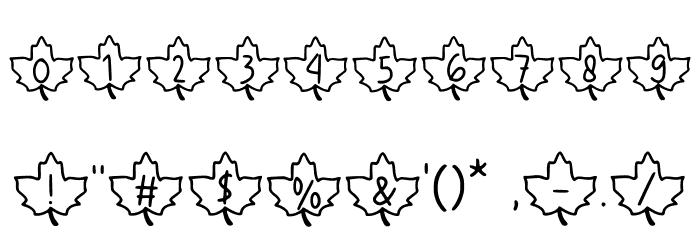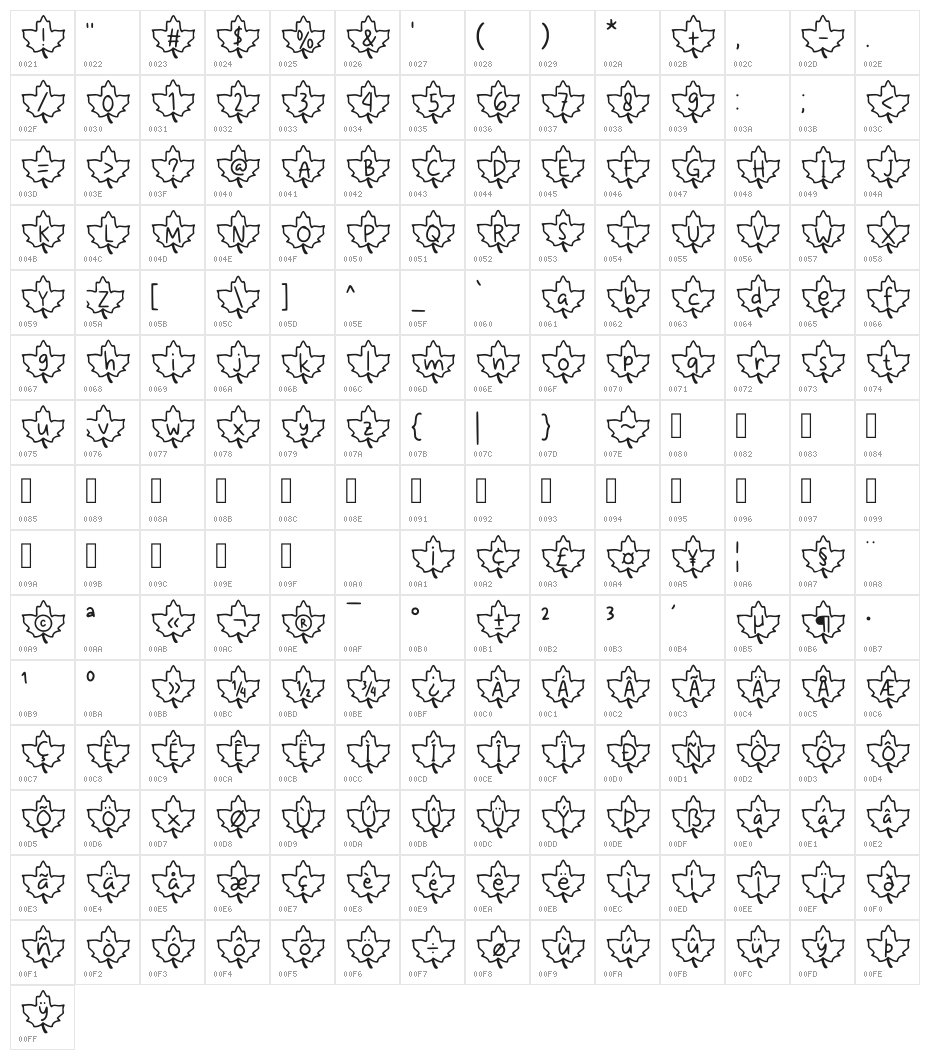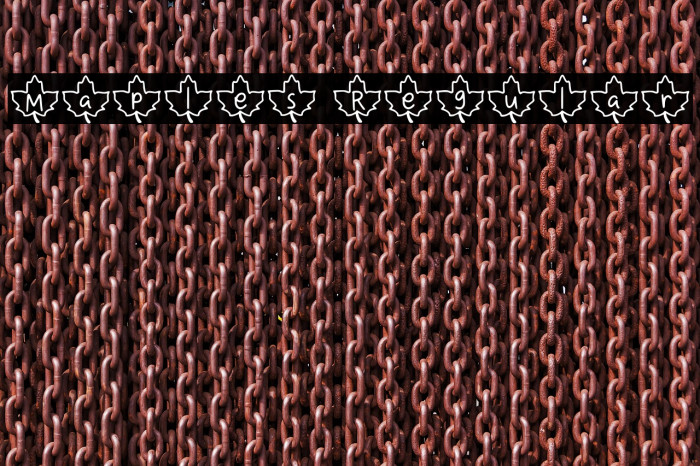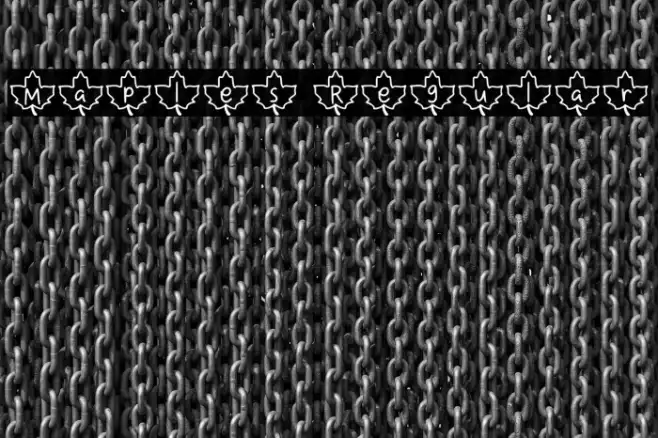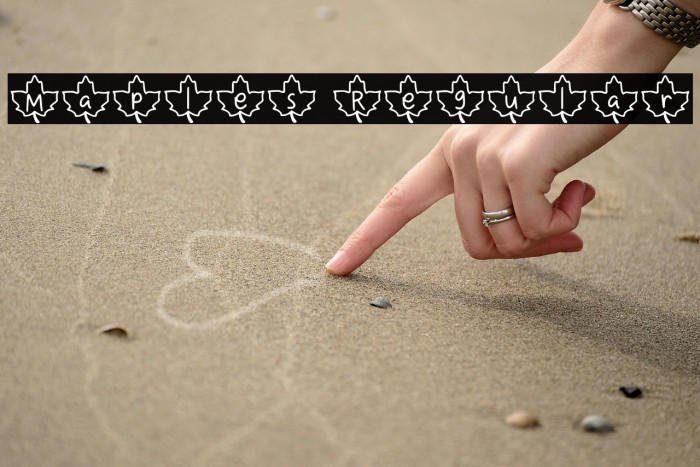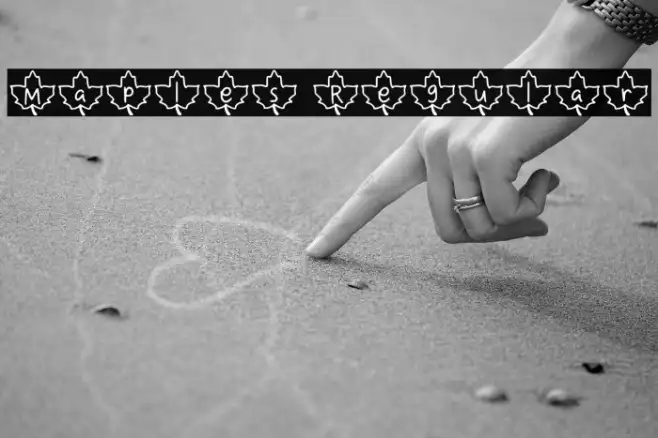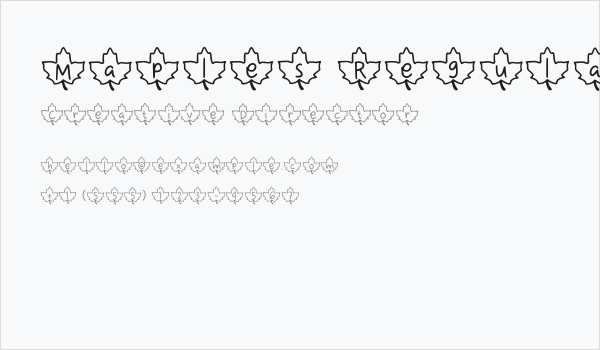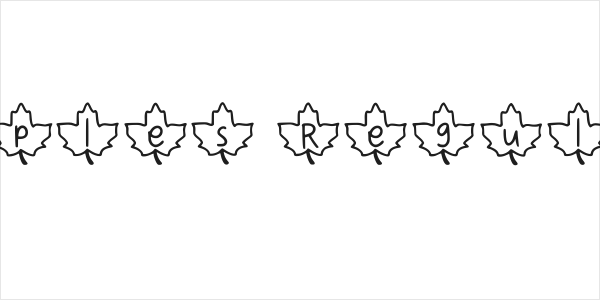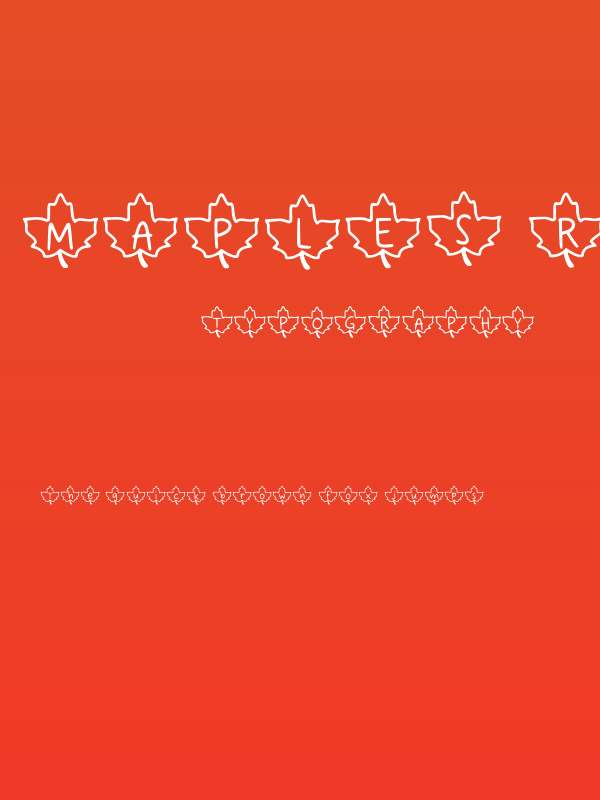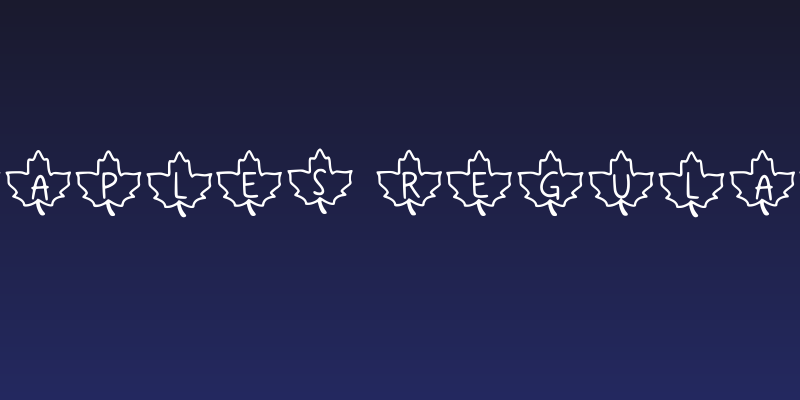
Maples Regular Font
Maples Regular Description
This font features characters enclosed within stylized maple leaf outlines, creating a unique and decorative appearance. Each letter and number is centered within the leaf, maintaining a consistent and playful theme throughout the set. The design is bold and eye-catching, making it suitable for projects that require a touch of nature or a Canadian theme. The characters are evenly spaced within the leaves, providing a balanced look. The font includes both uppercase and lowercase letters, numbers, and a selection of special characters, all adhering to the maple leaf motif.
| Proposed Projects | Ideal for nature-themed posters, Canadian cultural events, and playful branding materials. |